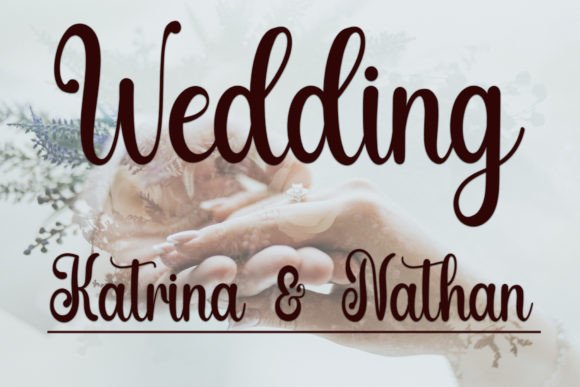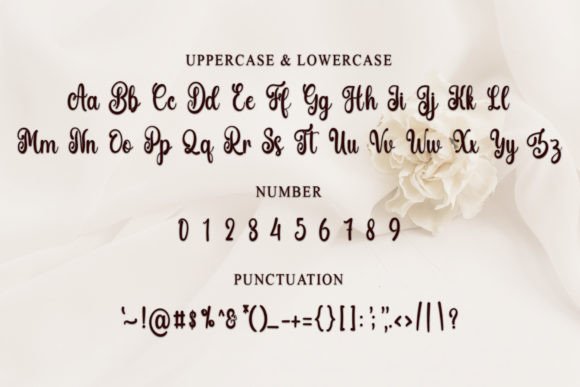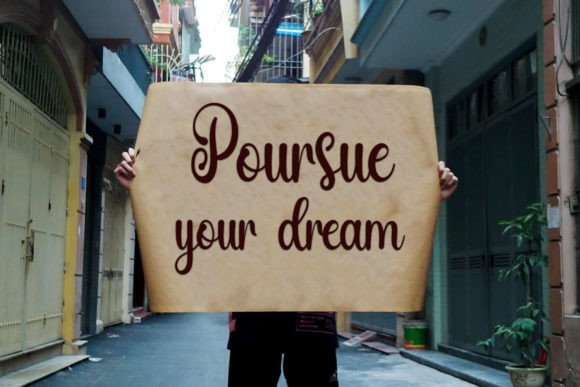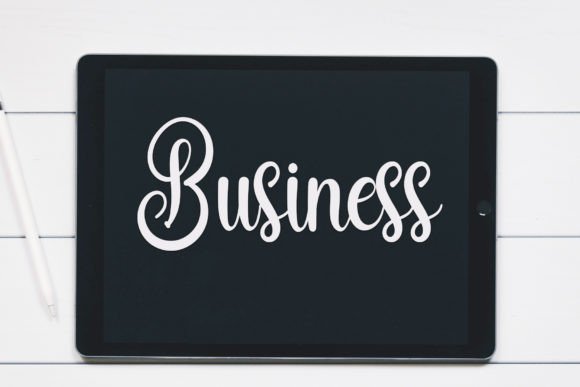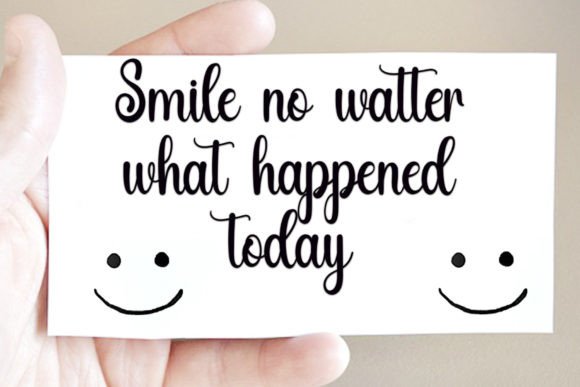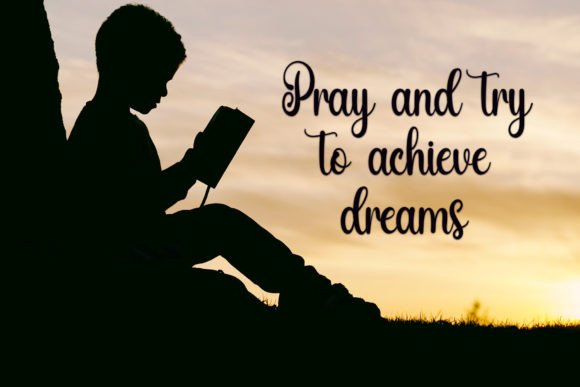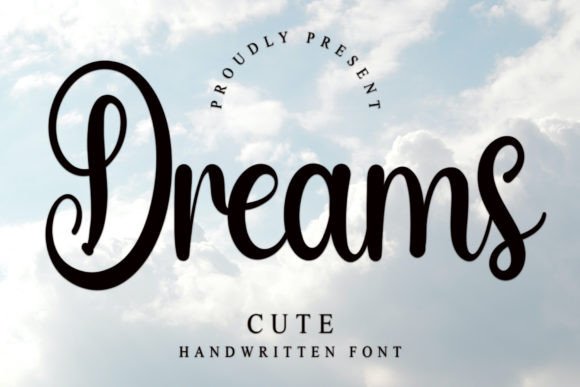
Dreams Font: Elevate Your Designs with Elegance and Timeless Style
Are you searching for a font that can add a touch of sophistication and elegance to your designs? Look no further than Dreams Font, a beautiful handwritten font that is sure to capture your heart. With its unique and timeless style, Dreams Font is perfect for designers and crafters who want to create stunning visual content that stands out from the crowd.
What is Dreams Font?
Dreams Font is a carefully crafted handwritten font that boasts an elegant touch, making it ideal for a wide range of projects. Whether you’re working on a logo, branding materials, social media graphics, or even a website, Dreams Font is sure to bring a level of sophistication and refinement to your designs. Its distinct style is both classic and modern, allowing you to create spectacular designs that resonate with your audience.
Key Features of Dreams Font
- Handwritten Elegance: Dreams Font is a handwritten font that exudes elegance and refinement, making it perfect for designs that require a personal touch.
- Unique and Timeless Style: The font’s distinct style is both classic and modern, ensuring that your designs will stand the test of time.
- Versatile: Dreams Font can be used for a wide range of projects, from logos and branding materials to social media graphics and websites.
- Easy to Read: The font is clear and easy to read, making it perfect for body text and headings.
Why Choose Dreams Font?
With so many fonts available, why choose Dreams Font? Here are just a few reasons why designers and crafters love this beautiful font:
- Emotional Connection: Dreams Font has a way of evoking emotions and creating a connection with your audience. Its elegant and refined style makes it perfect for designs that require a personal touch.
- Flexibility: The font is highly versatile and can be used for a wide range of projects, from formal to informal designs.
Design Ideas Using Dreams Font
Now that you’ve fallen in love with Dreams Font, here are some design ideas to get you started:
- Logo Design: Use Dreams Font to create a stunning logo that reflects your brand’s personality and style.
- Social Media Graphics: Create eye-catching social media graphics that showcase your brand’s message and style.
- Wedding Invitations: Use Dreams Font to create beautiful wedding invitations that set the tone for the big day.
- Branding Materials: Create a cohesive brand identity with Dreams Font, including business cards, brochures, and more.
Tips for Using Dreams Font
To get the most out of Dreams Font, here are some tips to keep in mind:
- Pair with Other Fonts: Experiment with pairing Dreams Font with other fonts to create a unique and visually appealing design.
- Use for Headings and Titles: Use Dreams Font for headings and titles to add a touch of elegance and sophistication to your designs.
In conclusion, Dreams Font is a beautiful handwritten font that is sure to elevate your designs with its elegant and timeless style. With its versatility, ease of use, and emotional connection, it’s the perfect choice for designers and crafters who want to create stunning visual content. Whether you’re working on a logo, branding materials, or social media graphics, Dreams Font is sure to bring a level of sophistication and refinement to your designs.